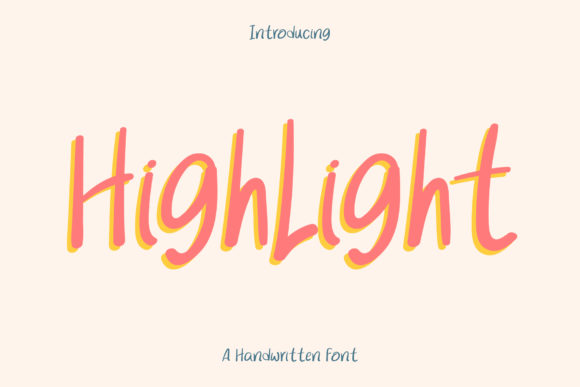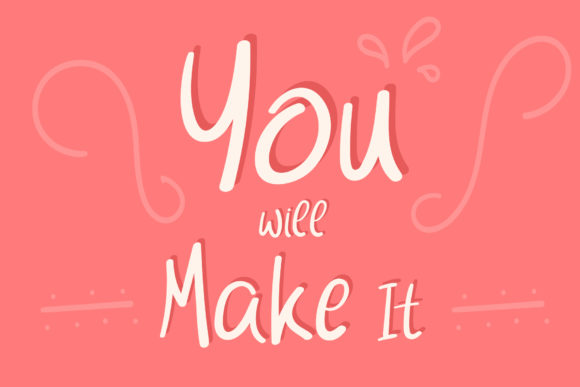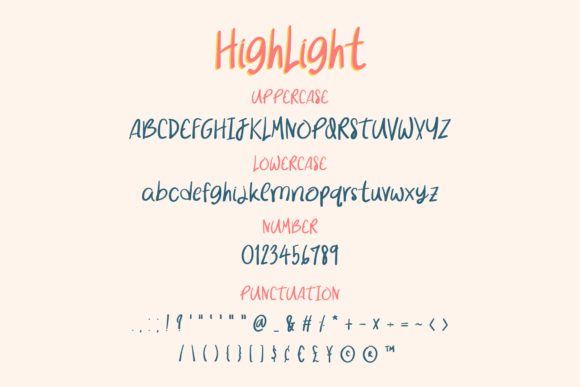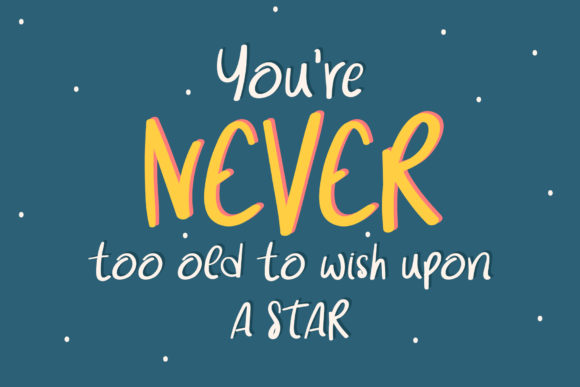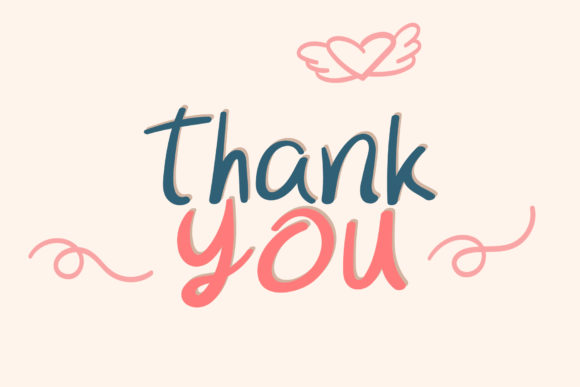
Highlight Font
About Highlight Font
Highlight is a simple and relaxed handwritten font. A bit quirky, this font looks incredibly adept on a wide range of creative designs.